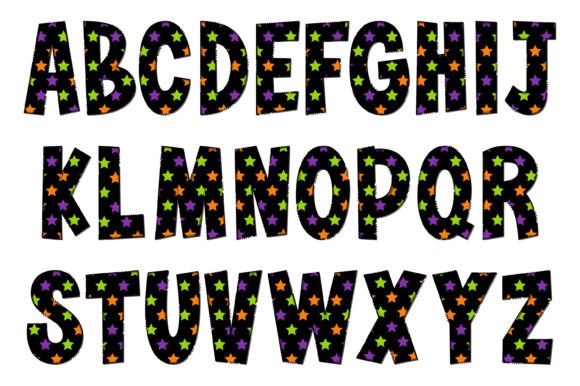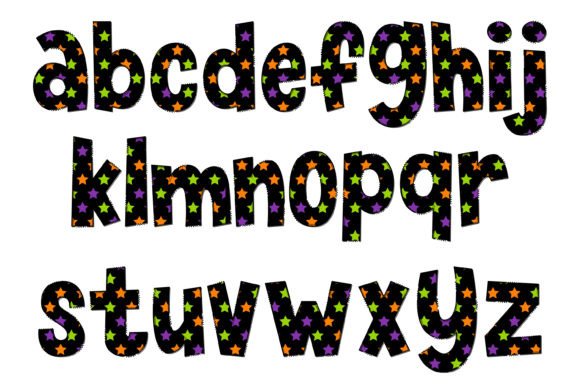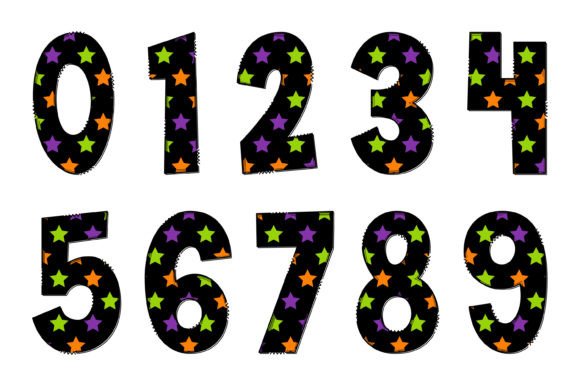
Introduction to Magical Star Font
This font is often used in designs that aim to convey a playful or artistic feel, such as children’s books, posters, invitations, greeting cards, and more.
For instance, children’s books often utilize fonts that are whimsical, colorful, and easy to read, creating an engaging reading experience for young audiences Note.
Key Features of Magical Star Font
Why Choose Magical Star Font?
Magical Star Font offers exceptional quality and versatility, making it a valuable addition to your design toolkit. Whether you’re creating for personal projects or commercial use, Magical Star Font delivers professional results.